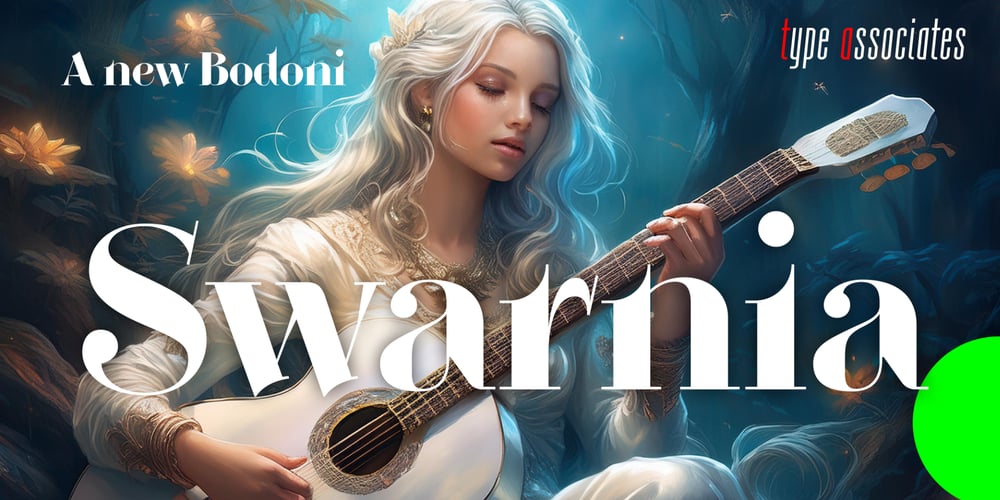
Swarnia Font Family was designed by Russell Bean and published by Type Associates. Swarnia contains 1 styles and family package options. Although unintentional, Swarnia is inspired by the multitude of Bodoni, Didone, and similar high-contrast serif typefaces popular in the hand-set and hot type era of the eighteenth and early-nineteenth centuries. We chose not to name this modern version as a Bodoni rather to allude to the French descriptor that gave rise to the design. Soigné in French means neat, tidy or well groomed. Swarnia is spaced for larger sizes and is perfect for logos and display-size headings. Swarnia’s personality implies value, quality, panache and flamboyance.